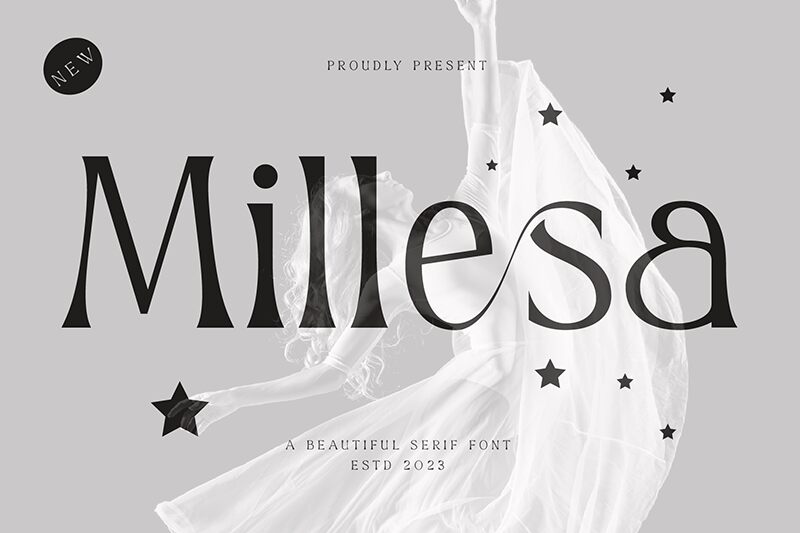
Millesa font family designed by Muflieart combines retro charm and contemporary aesthetic. It comes in 2 font styles that bring a sophisticated touch to any project. With subtle curves and rounded serifs, it offers a refined impression to any design. It balances a modern elegance with an artistic flair and a graceful flow.
Millesa is best used in creating front-page headlines, logos, and posters. It also works just fine when used for packaging design, fashion projects, and advertising. This font family is versatile enough for forming invitation cards for weddings, birthdays, and others.